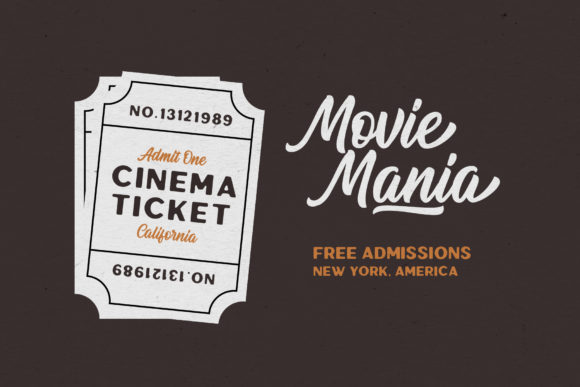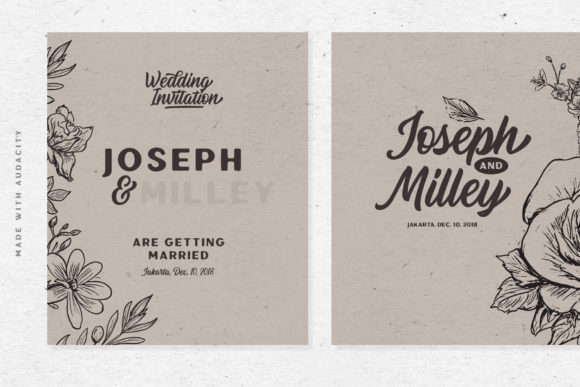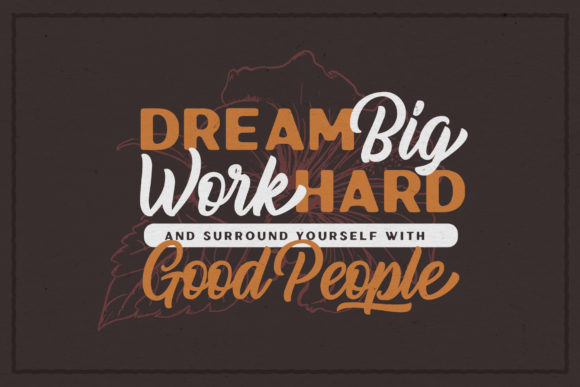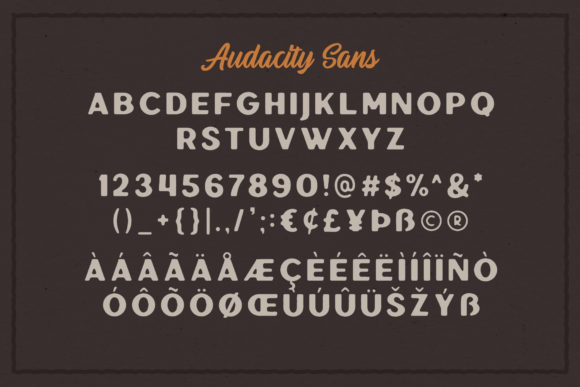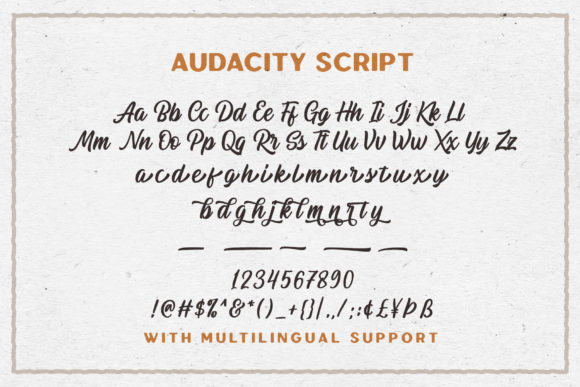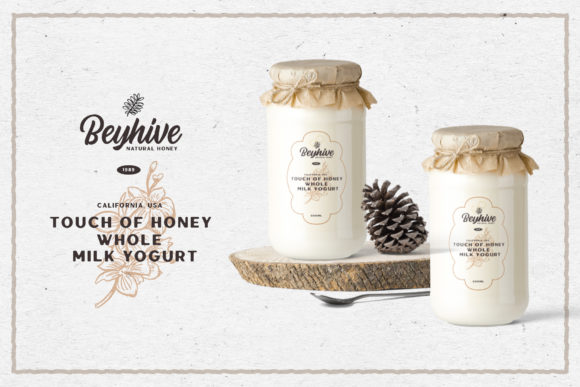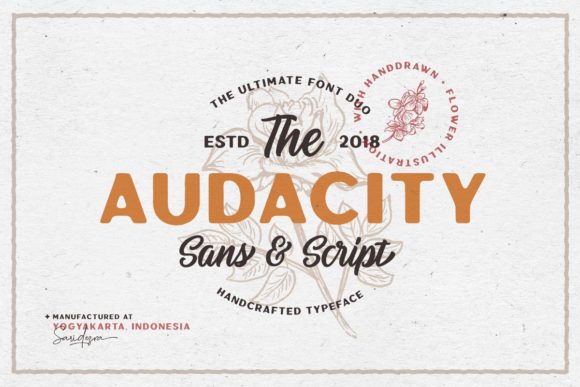
Audacity Duo Font: Elevate Your Designs with this Fun and Striking Font Combination
Are you tired of using the same old fonts in your designs? Look no further than the Audacity Duo Font, a fun and striking font combination that’s perfect for designers and crafters alike. This versatile font duo includes a rough sans and a free-hand lettering script, which can be combined to create multiple unique designs in an instant.
What is the Audacity Duo Font?
The Audacity Duo Font is a carefully crafted font combination that includes two distinct styles: a rough sans font and a free-hand lettering script. The rough sans font has a rugged, edgy feel that’s perfect for creating bold and eye-catching designs, while the free-hand lettering script has a more playful and whimsical feel that’s ideal for adding a personal touch to your designs.
Key Features of the Audacity Duo Font
• Two font styles: The Audacity Duo Font includes two font styles: a rough sans font and a free-hand lettering script, giving you the flexibility to create a wide range of designs.
• Perfect combination: The two font styles can be combined perfectly, allowing you to create unique and eye-catching designs in an instant.
• Vintage flower illustrations: As a bonus, the Audacity Duo Font includes amazing flower illustrations with a vintage vibe, which can add a touch of elegance and sophistication to your designs.
• Multiple uses: The Audacity Duo Font can be used for a variety of design projects, including branding, logos, apparel, hand lettering, and much more.
Benefits of Using the Audacity Duo Font
So why should you choose the Audacity Duo Font for your design projects? Here are just a few benefits of using this versatile font combination:
• Stand out from the crowd: With its unique and striking font styles, the Audacity Duo Font can help your designs stand out from the crowd and grab attention.
• Easy to use: The Audacity Duo Font is easy to use and can be combined in a variety of ways to create unique and eye-catching designs.
• Time-saving: With the Audacity Duo Font, you can create multiple designs in an instant, saving you time and effort.
• Elegant and sophisticated: The vintage flower illustrations included with the font can add a touch of elegance and sophistication to your designs.
Who Can Benefit from the Audacity Duo Font?
The Audacity Duo Font is perfect for a variety of designers and crafters, including:
• Graphic designers: Graphic designers can use the Audacity Duo Font to create bold and eye-catching designs for clients.
• Hand lettering artists: Hand lettering artists can use the free-hand lettering script to create beautiful and unique lettering pieces.
• Crafters: Crafters can use the Audacity Duo Font to create custom designs for apparel, home decor, and other craft projects.
• Small business owners: Small business owners can use the Audacity Duo Font to create professional and eye-catching branding and marketing materials.
Tips for Using the Audacity Duo Font
Here are a few tips for using the Audacity Duo Font:
• Experiment with different combinations: Don’t be afraid to experiment with different combinations of the rough sans font and the free-hand lettering script.
• Use the vintage flower illustrations: The vintage flower illustrations included with the font are a great way to add a touch of elegance and sophistication to your designs.
• Play with colors: The Audacity Duo Font looks great in a variety of colors, so don’t be afraid to play with different color combinations.
The Audacity Duo Font is a fun and striking font combination that’s perfect for designers and crafters alike. With its two font styles, vintage flower illustrations, and multiple uses, this font duo is a versatile and valuable addition to any design collection. Whether you’re a graphic designer, hand lettering artist, crafter, or small business owner, the Audacity Duo Font is sure to elevate your designs and help you stand out from the crowd.